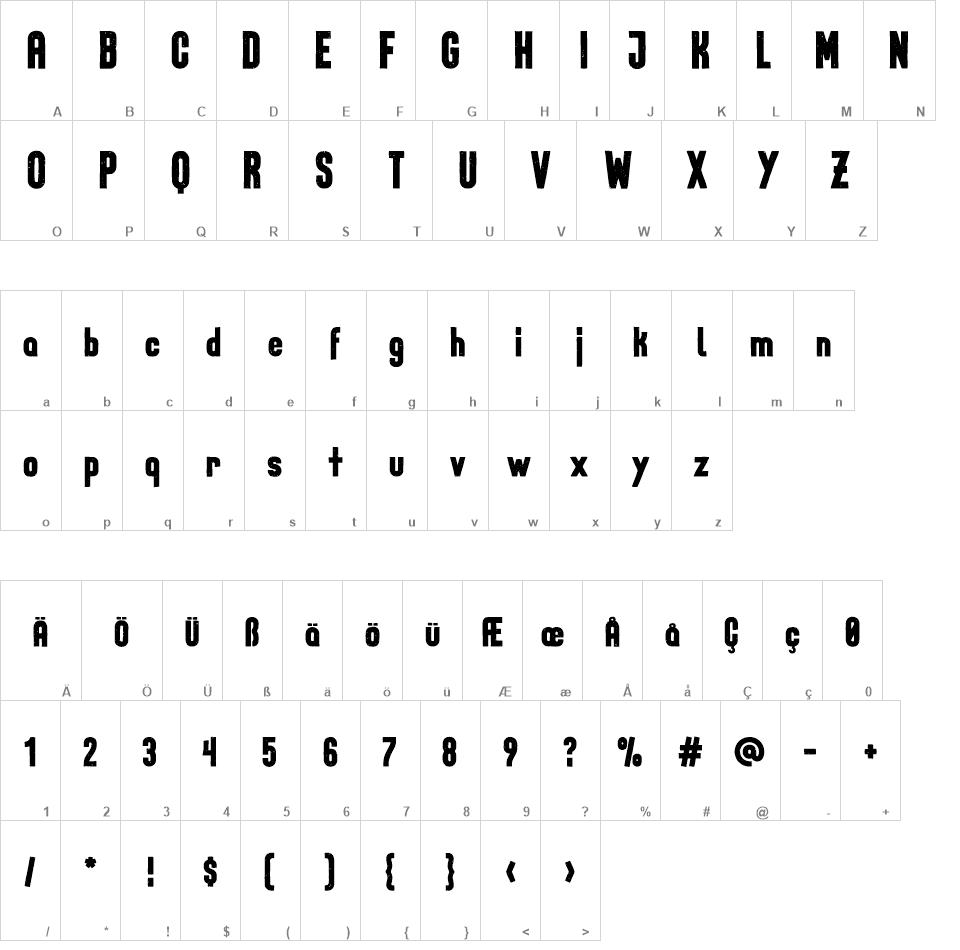
Roamer font
the font ROAMER BOLD is 100% handmade with love, sweat and tears. It's my first multilingual font and I'm proud to share it with the world. It's big, it's bold, it's rough, ready to get out there and be seen.
So let it roam!